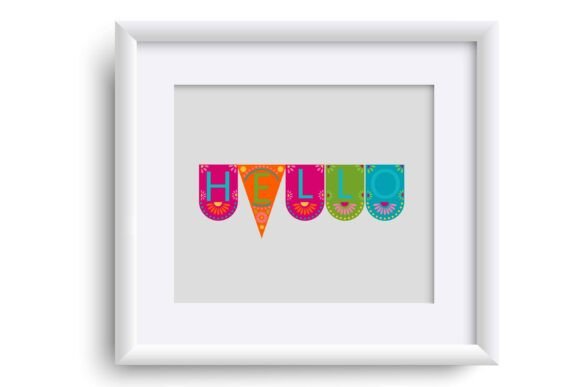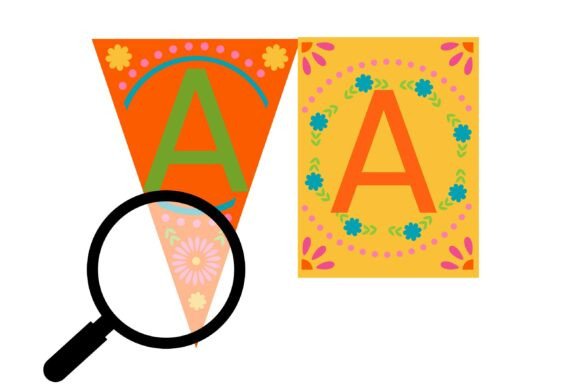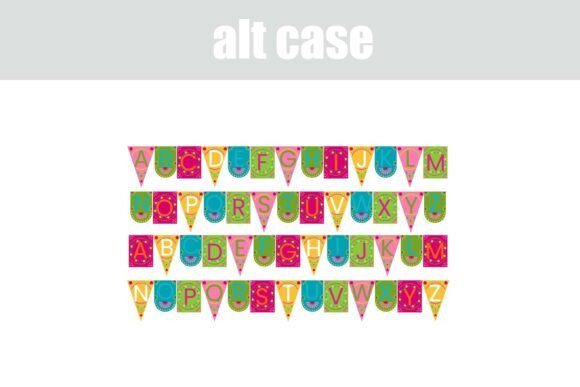
Introduction to Picado Font Font
Fonts play a crucial role in design, and the Picado Font font is a typeface that brings both character and versatility to any project. Whether you’re working on a branding project, a website, or a print design, the Picado Font font offers a unique style that can elevate your work.
String together a celebration with Picado, a vibrant display typeface that captures a “festive-and-fluttering” soul.
This full-color SVG font features clean, geometric letterforms uniquely characterized by being set within rhythmic “papel picado” banner frames, bridging the gap between traditional folk decorations and modern party branding With its balanced structural weight and joyful palette, Picado is the premier choice for independent event planner identities, boutique holiday market logos, seasonal festival signage, and high-impact “perforated-and-proud” social media headers.
Why Choose Picado Font Font?
The Picado Font font is more than just a typeface – it’s a design tool that helps you communicate your message with style and clarity. Its unique character set and versatile design make it suitable for a wide range of applications, from elegant invitations to bold headlines.
With its carefully crafted letterforms and balanced proportions, the Picado Font font ensures readability and visual appeal across all mediums.
What makes Picado Font font special?
The Picado Font font stands out with its unique design, exceptional readability, and versatility across various design applications.